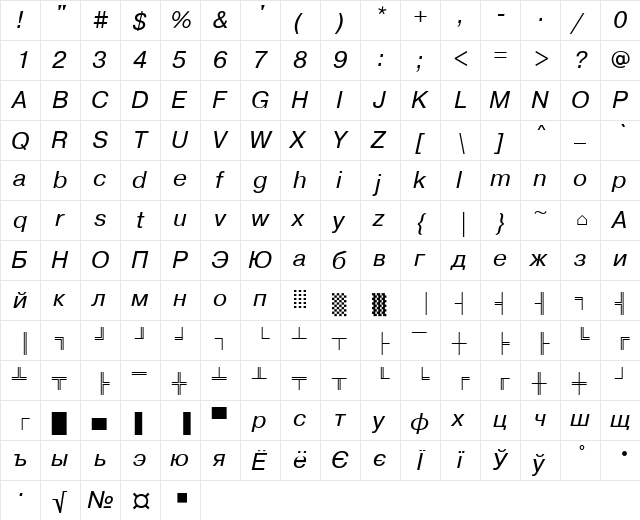
PragmaticaDOSCTT Italic
Design Context for PragmaticaDOSCTT Typeface
PragmaticaDOSCTT is a composed and adaptable typeface that performs quietly and consistently across a wide range of design contexts. The slanted form adds forward momentum and visual energy.
Pro Tip: Use PragmaticaDOSCTT for emphasis, pull quotes, and subheadings where its slanted energy can add rhythm to the layout.